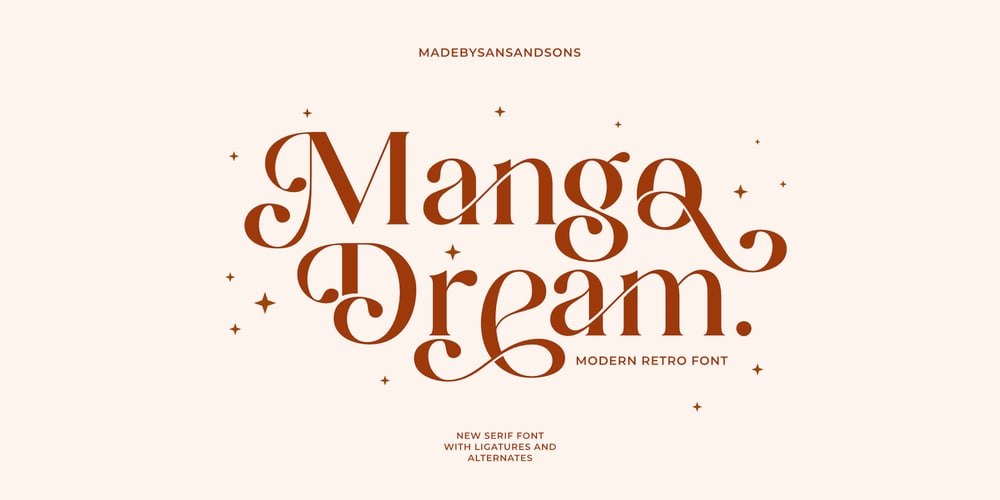
Mango Dream Font Family was designed by Angga Suwista and published by Sans And Sons. Mango Dream contains 1 styles and family package options. Mango Dream is Modern Retro Serif with Elegant and Retro Style.Each unique letters designed to create harmoniously, charming and lend themselves to high end branding, product packaging, logo designs & invitation designs.